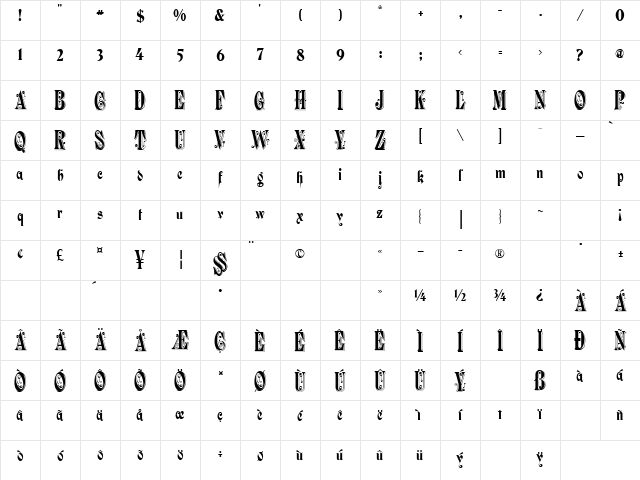
WaterLily Regular
Design Context for WaterLily
WaterLily is a composed and adaptable typeface that performs quietly and consistently across a wide range of design contexts.
Pro Tip: Use WaterLily in both headline and body roles to test its range before committing to a single application.